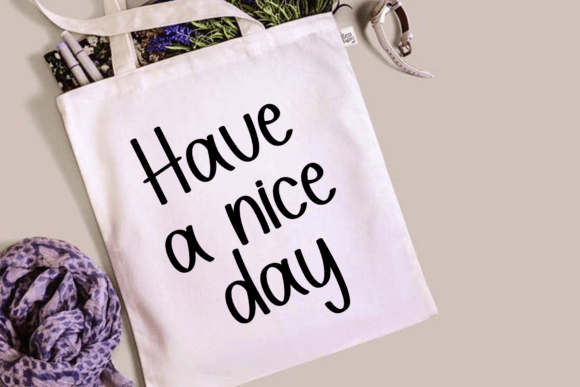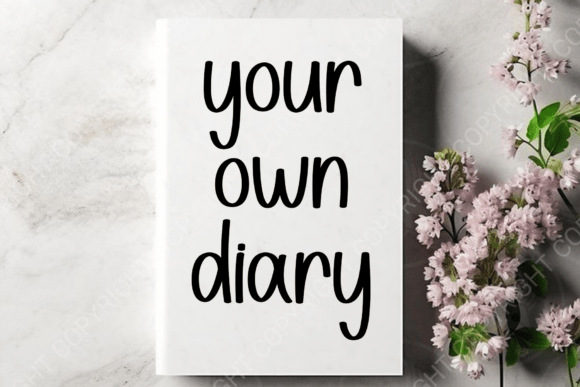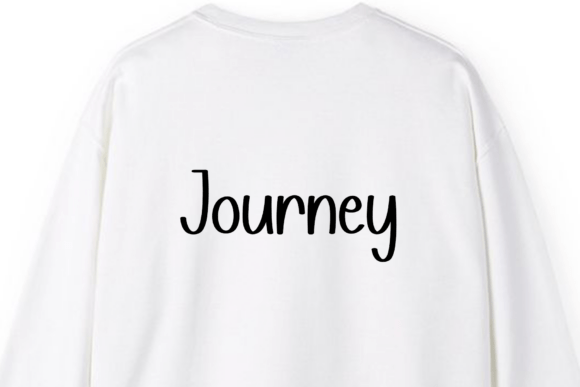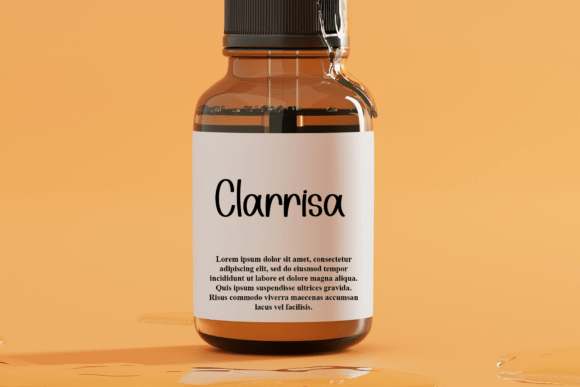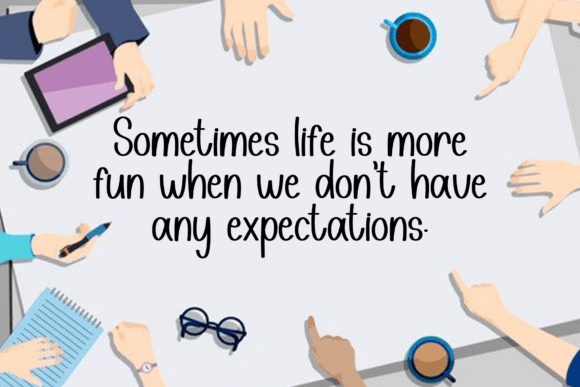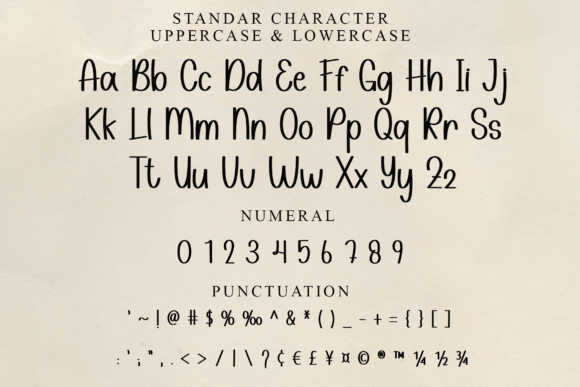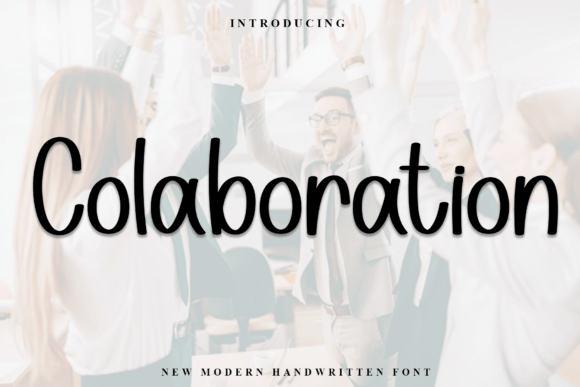
Introducing Colaboration Font: The Perfect Holiday Typeface
The holiday season is upon us, and what better way to get into the spirit than with a festive and merry typeface? Look no further than Colaboration Font, a decorative and whimsical font that’s sure to add a touch of enchantment to your designs. In this article, we’ll dive into the world of Colaboration Font and explore its features, benefits, and uses.
Colaboration Font is a holiday-themed typeface that’s designed to capture the magic and wonder of the season. With its decorative elements and whimsical flair, it’s the perfect addition to any holiday-themed project. Whether you’re designing greeting cards, gift tags, or festive posters, Colaboration Font is sure to bring a cheerful and nostalgic ambiance to your words.
Colaboration Font is a versatile typeface that’s perfect for designers and crafters alike. Its decorative elements and whimsical flair make it ideal for a wide range of projects, from holiday-themed crafts to professional design projects. Whether you’re creating digital files or physical products, Colaboration Font is sure to add a touch of magic to your designs.
One of the best features of Colaboration Font is that it’s PUA (Private Use Area) encoded. This means that you can access all of the amazing glyphs and ligatures with ease, making it simple to create beautiful and intricate designs. With PUA encoding, you can unlock the full potential of Colaboration Font and take your designs to the next level.
So, what makes Colaboration Font so special? Here are just a few of its key features and benefits:
- Decorative elements: Colaboration Font features decorative elements that add a touch of whimsy and flair to your designs.
- Whimsical flair: The font’s whimsical flair makes it perfect for holiday-themed projects and designs.
- PUA encoded: With PUA encoding, you can access all of the amazing glyphs and ligatures with ease.
- Perfect for greeting cards and gift tags: Colaboration Font is ideal for creating festive and merry greeting cards and gift tags.
- Scalable: The font is scalable, making it perfect for use in a wide range of projects, from small crafts to large-scale designs.
Uses for Colaboration Font
So, what can you use Colaboration Font for? The possibilities are endless! Here are just a few ideas to get you started:
- Greeting cards: Create festive and merry greeting cards for the holiday season.
- Gift tags: Add a touch of magic to your gift tags with Colaboration Font.
- Holiday-themed posters: Create eye-catching holiday-themed posters with Colaboration Font.
- Crafts: Use Colaboration Font to add a touch of whimsy and flair to your holiday-themed crafts.
- Digital files: Create digital files, such as holiday-themed printable art or social media graphics, with Colaboration Font.